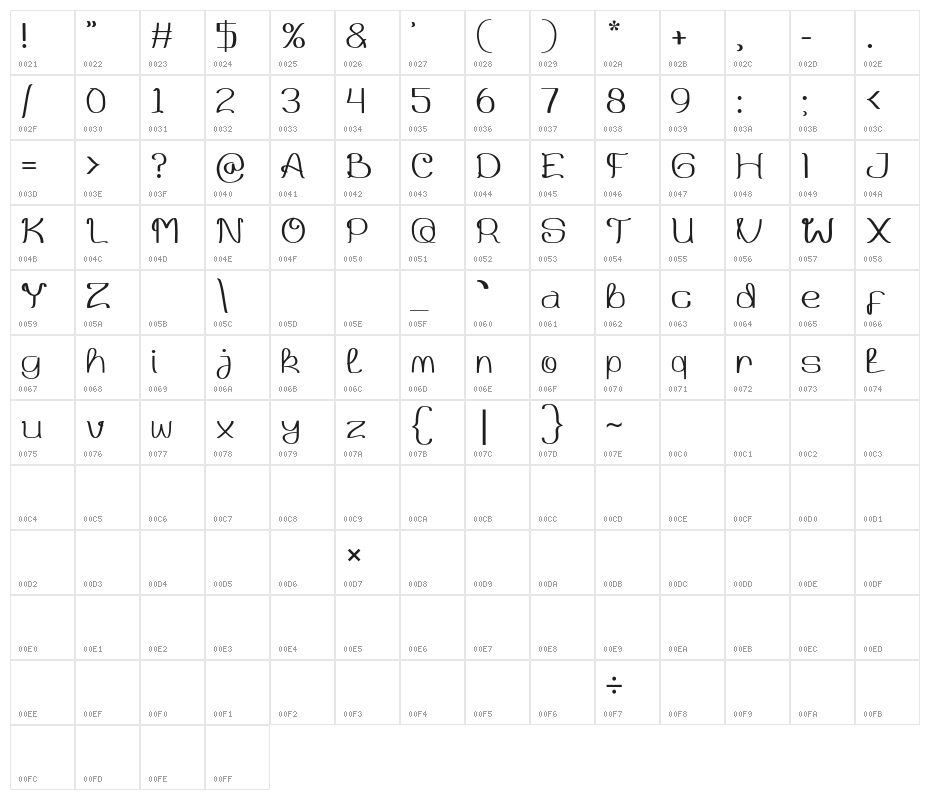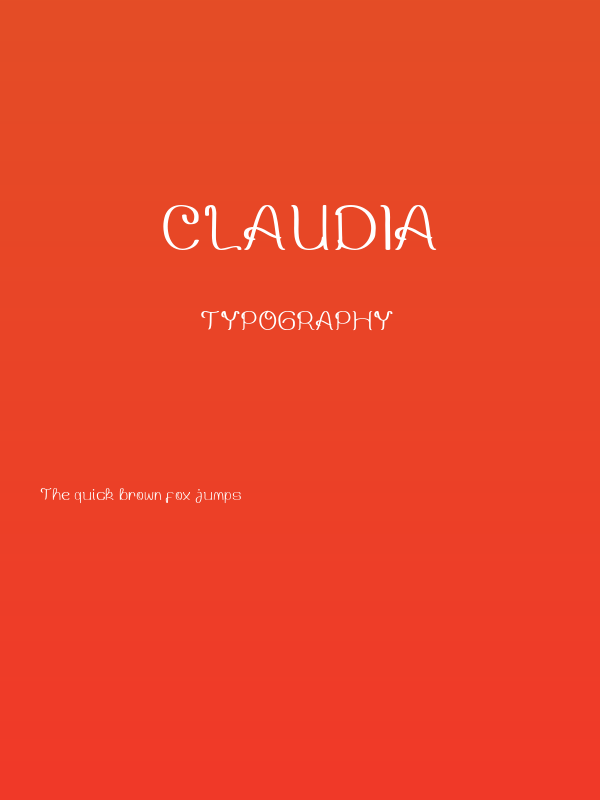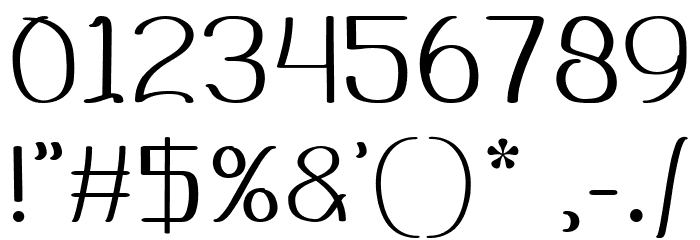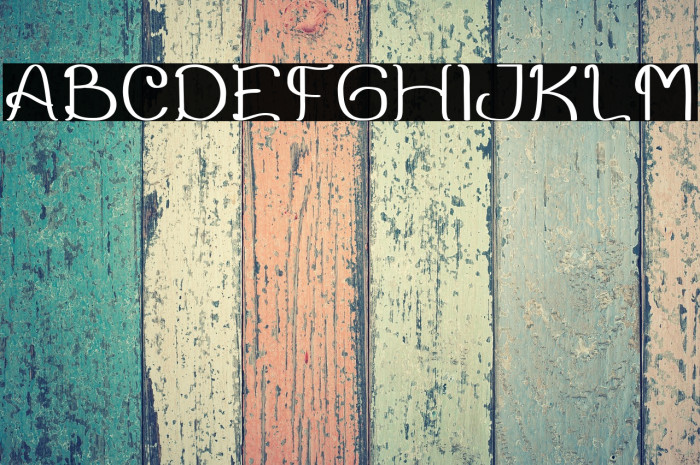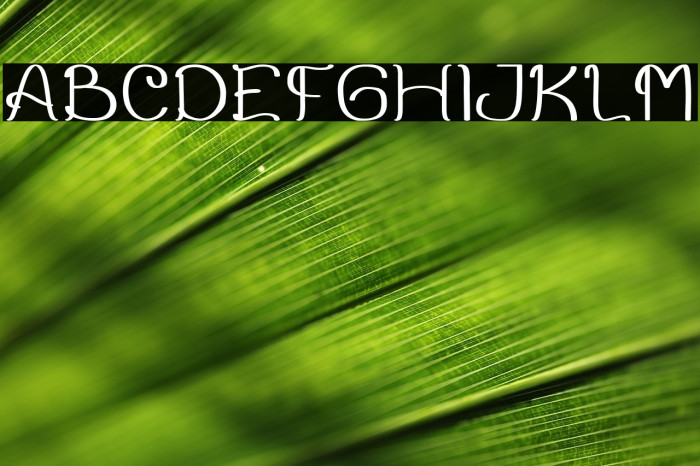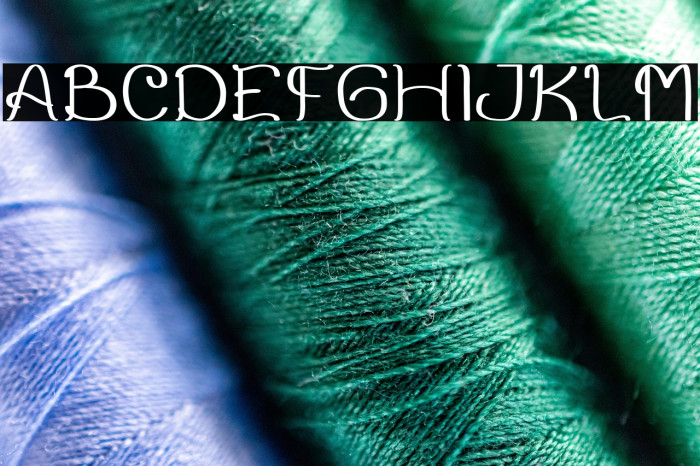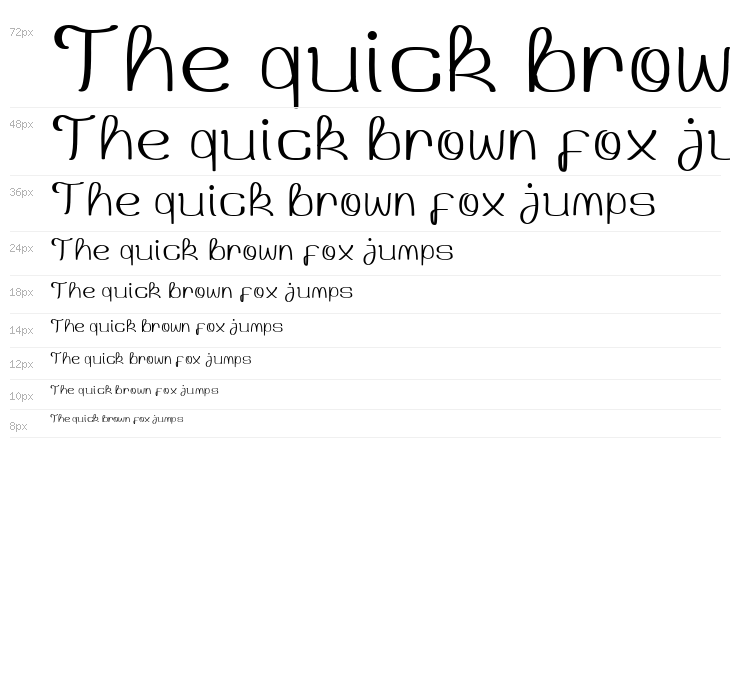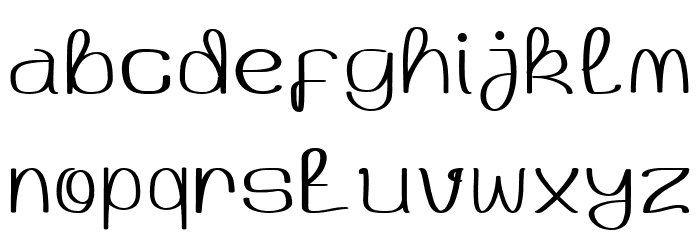
Claudia Font
Claudia Description
This font features a playful and whimsical style with a handwritten appearance. The characters are slightly irregular, adding a charming and informal touch. Uppercase letters are bold and distinctive, while lowercase letters maintain a consistent flow with gentle curves. The numerals are clear and easy to read, complementing the overall style. Special characters are creatively designed, enhancing the font's unique personality. This font is perfect for projects that require a friendly and approachable look.
| Proposed Projects | Ideal for greeting cards, children's books, playful branding, and casual invitations. |